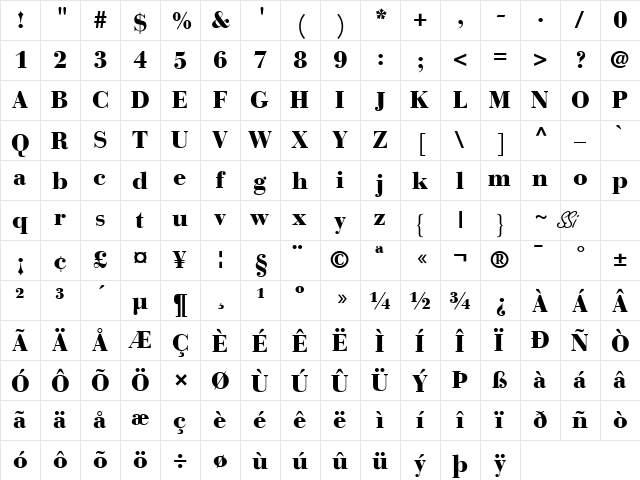
Bodoni Recut Black SSi Black
Design Context for Bodoni Recut Black SSi Typeface
Bodoni Recut Black SSi takes a measured approach to typography — its balanced proportions and neutral character make it a reliable workhorse for both digital and print work.